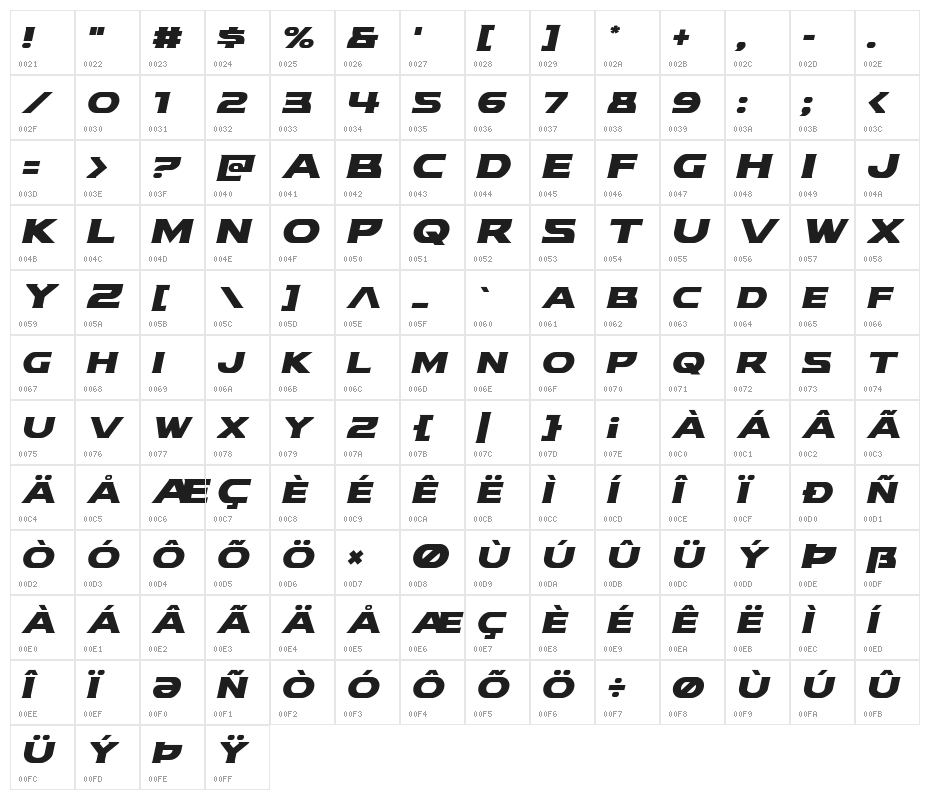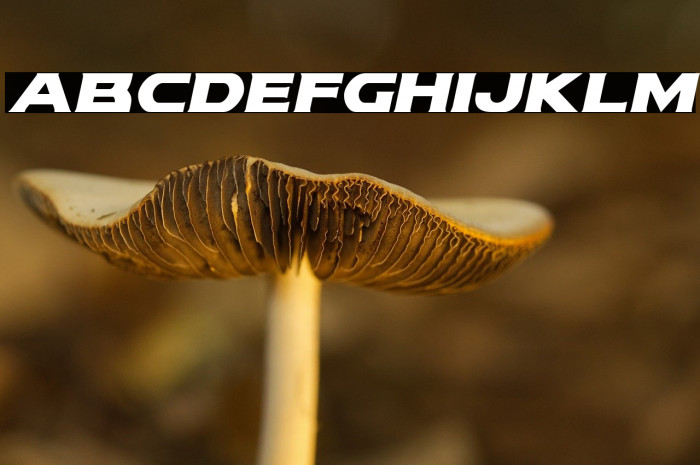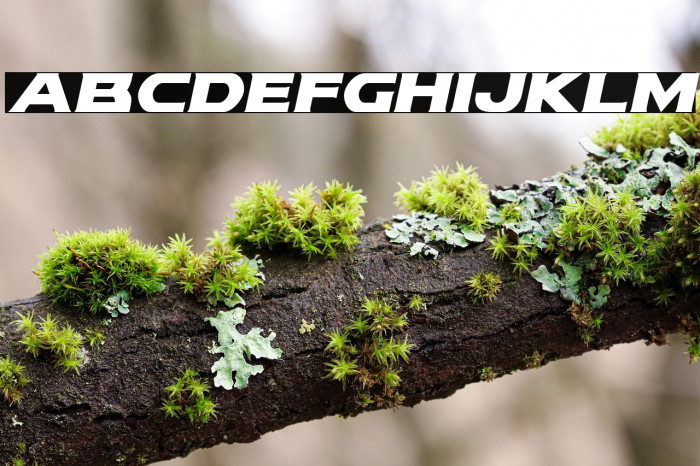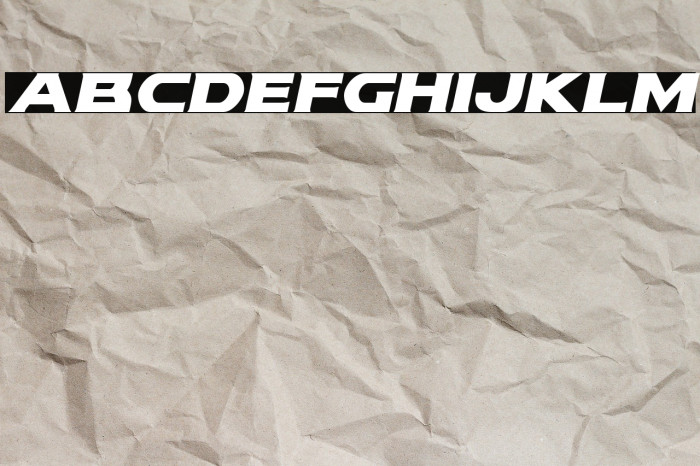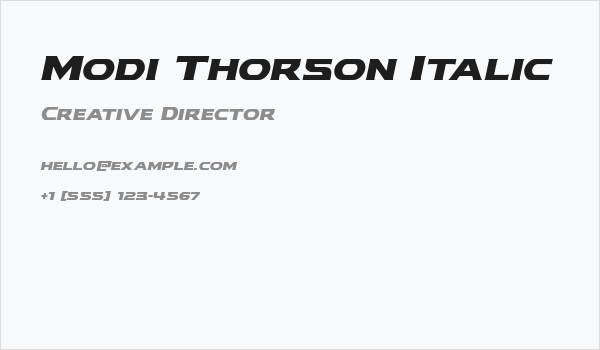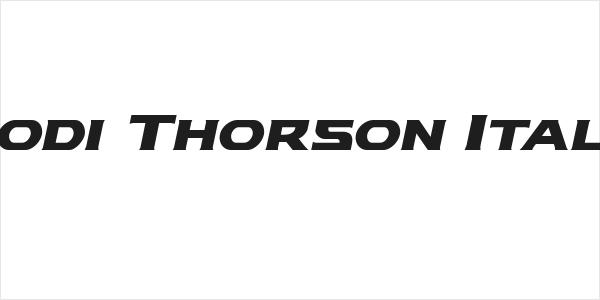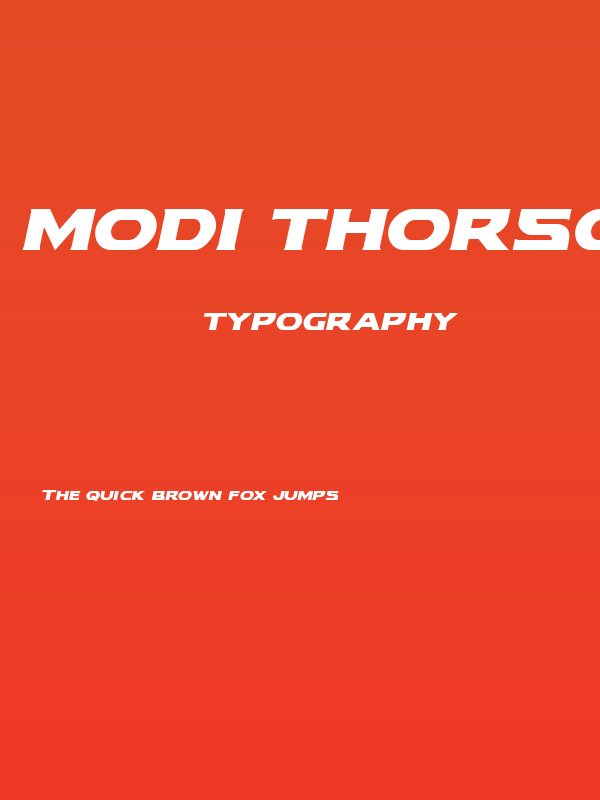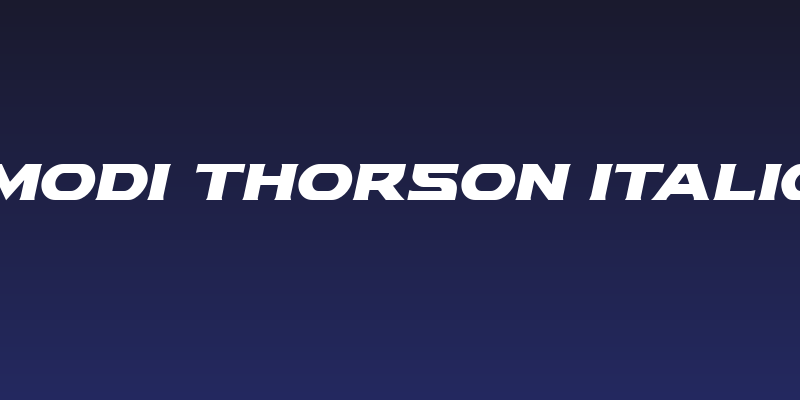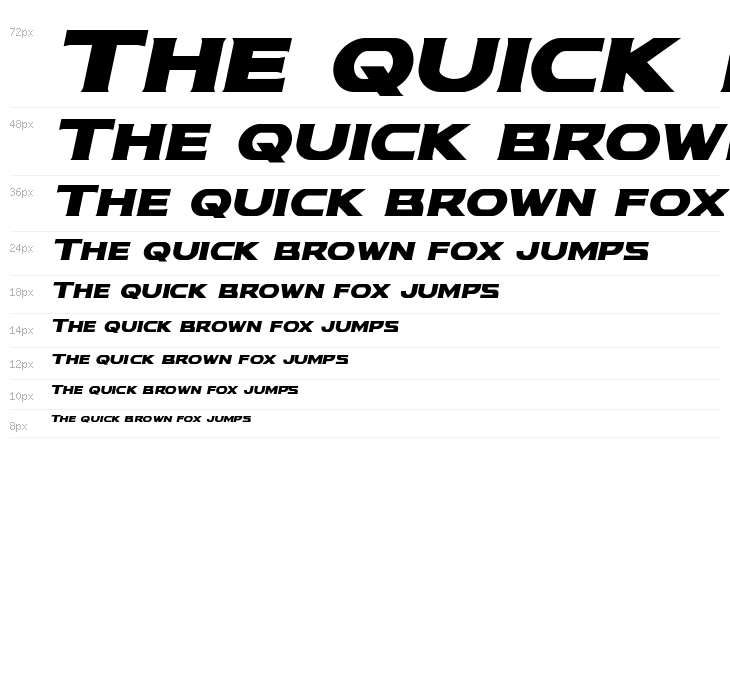
Modi Thorson Italic Font
Modi Thorson Italic Description
This font features a bold, italicized style with a strong, dynamic presence. The characters are sharply angled, giving a sense of motion and energy. The uppercase and lowercase letters maintain a consistent slant, enhancing the italic effect. The numbers and special characters follow the same design principles, ensuring uniformity across all glyphs. The font's bold weight and italic style make it suitable for impactful designs where attention is needed. The character spacing is tight, contributing to its compact and cohesive appearance. The high contrast in stroke thickness adds to its boldness, making it stand out in various applications.
| Proposed Projects | Ideal for sports branding, action movie posters, dynamic logos, and headlines that require a strong visual impact. |